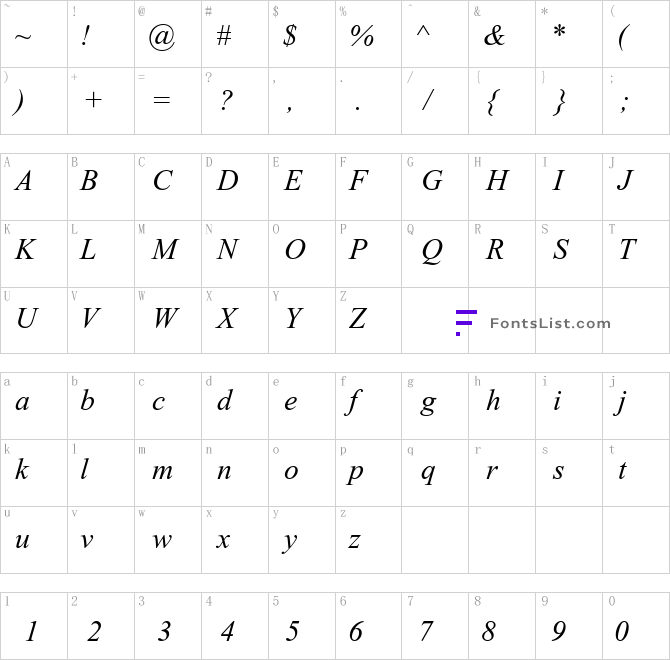
• Font Name:Aparajita
• Subfamily:Italic
• Subfamily:MITL: Modular InfoTech Aparajita Italic
• Full Name:Aparajita Italic
Aparajita-Italic.ttf is a very beautiful artistic font, Aparajita-Italic.ttf is widely used in the design and printing of various books and pictures,Aparajita-Italic.ttf has a strong visual impact,Aparajita-Italic.ttf is a commonly used font in newspapers, magazines and books, and is used in posters, e-commerce Poster design, store design, logo design, font design and other fields.Aparajita-Italic.